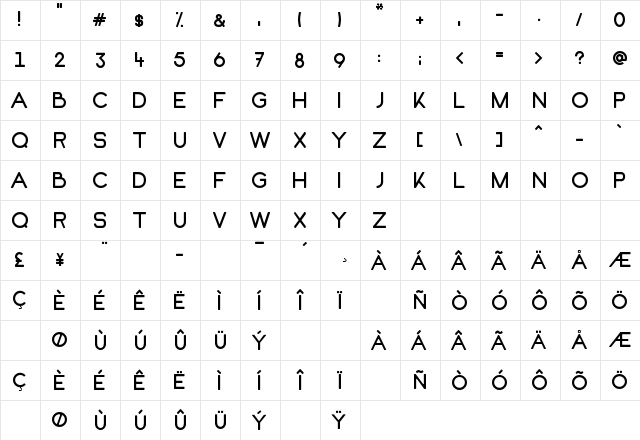
KOFI Regular Font Preview
KOFI Regular
KOFI Regular Font Details
| Designer | Zaffar Ansari |
Design Context for KOFI Typeface
KOFI offers clean, dependable letterforms without strong stylistic allegiance, making it a practical choice for designers who need flexibility.
Pro Tip: Pair KOFI with a font of contrasting weight or personality to build a more expressive typographic hierarchy.